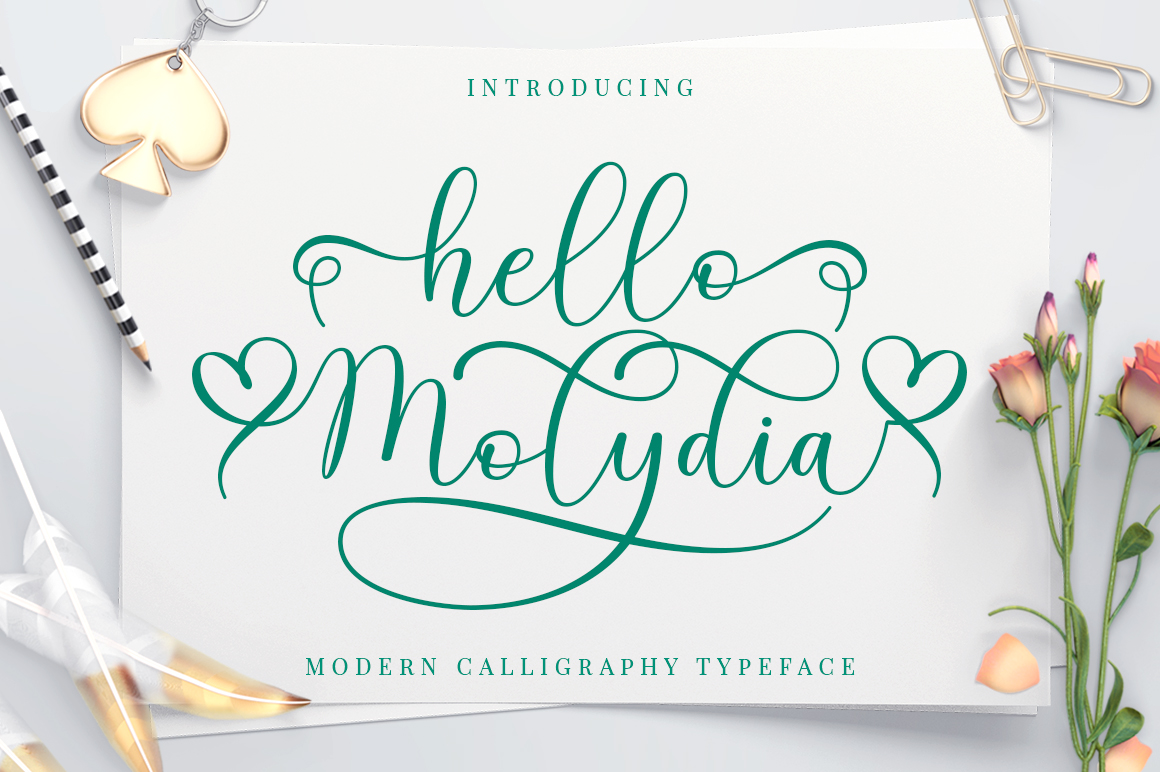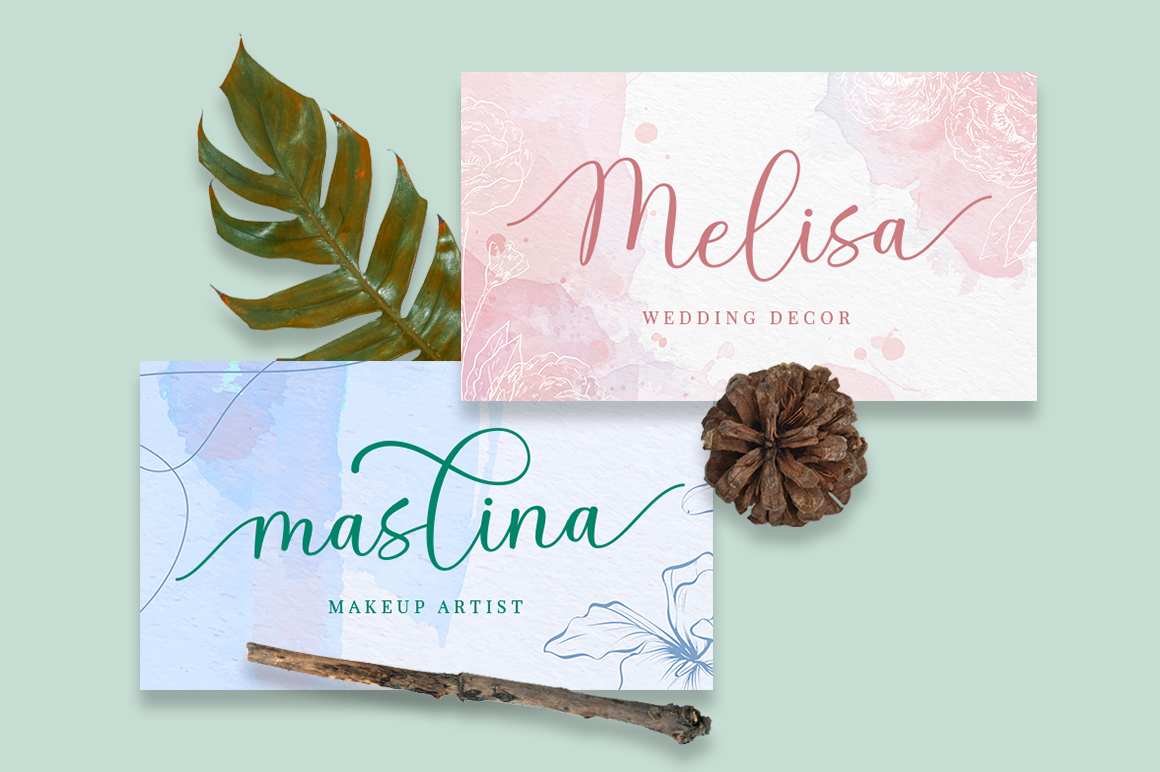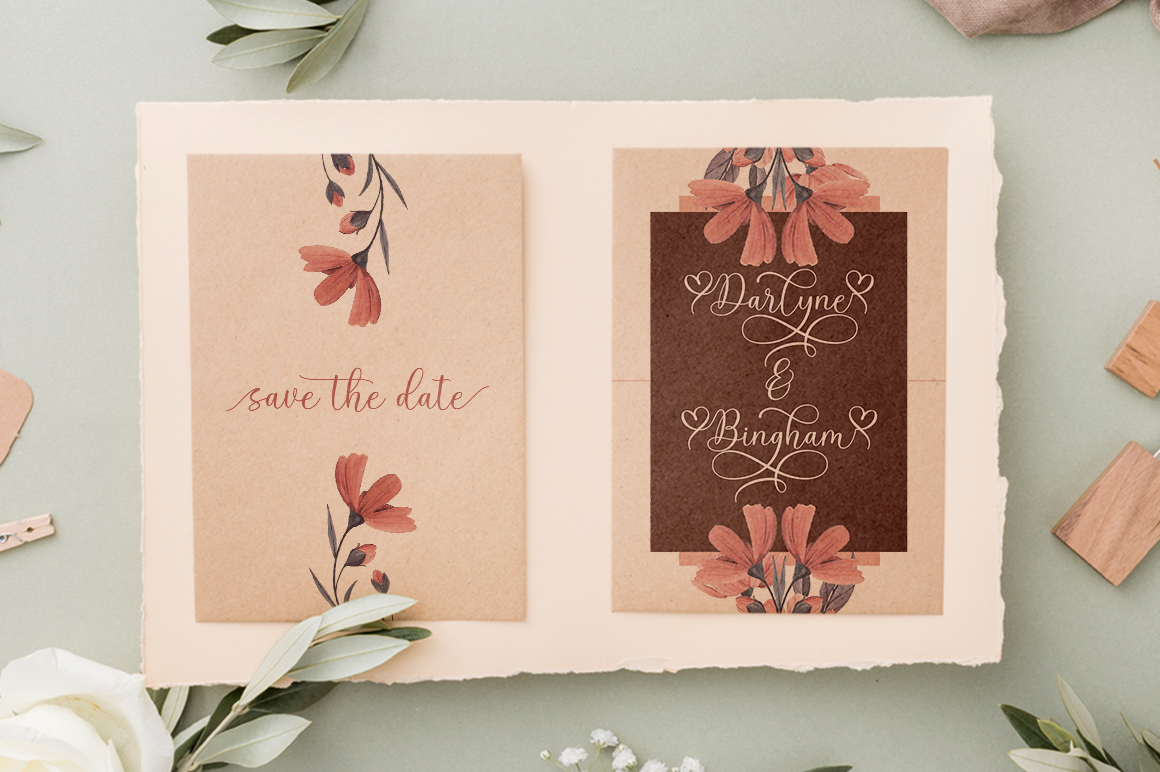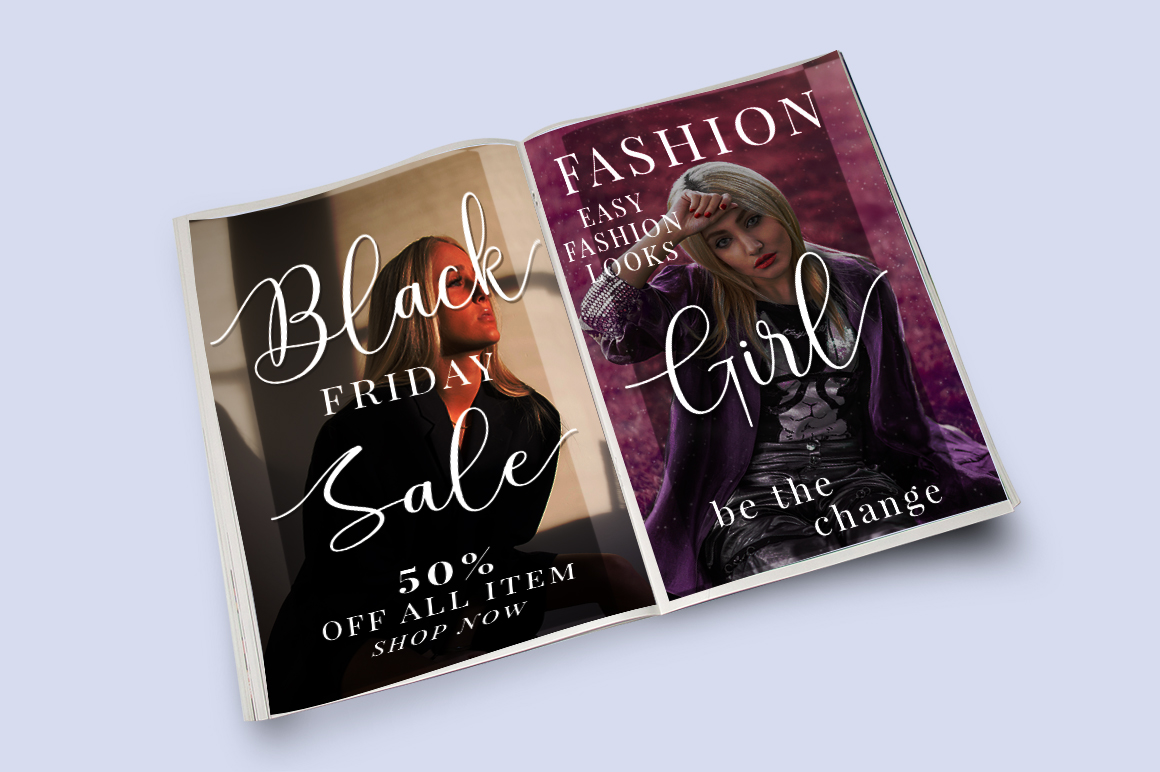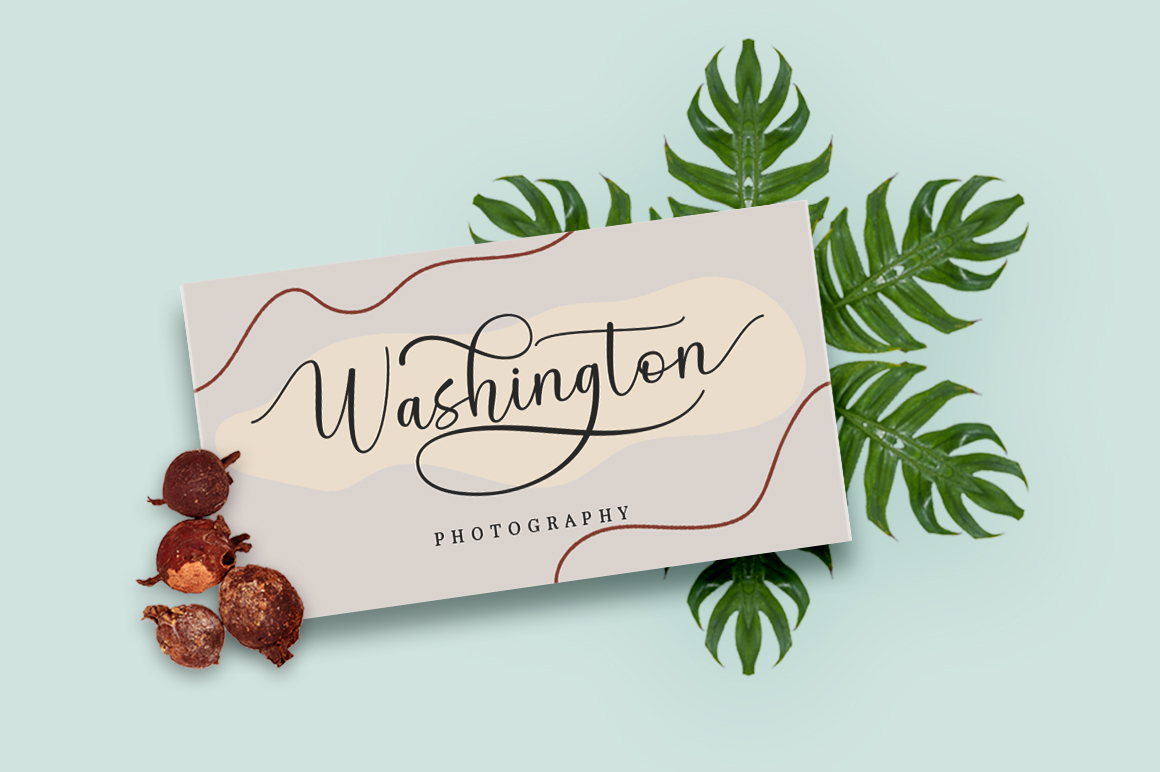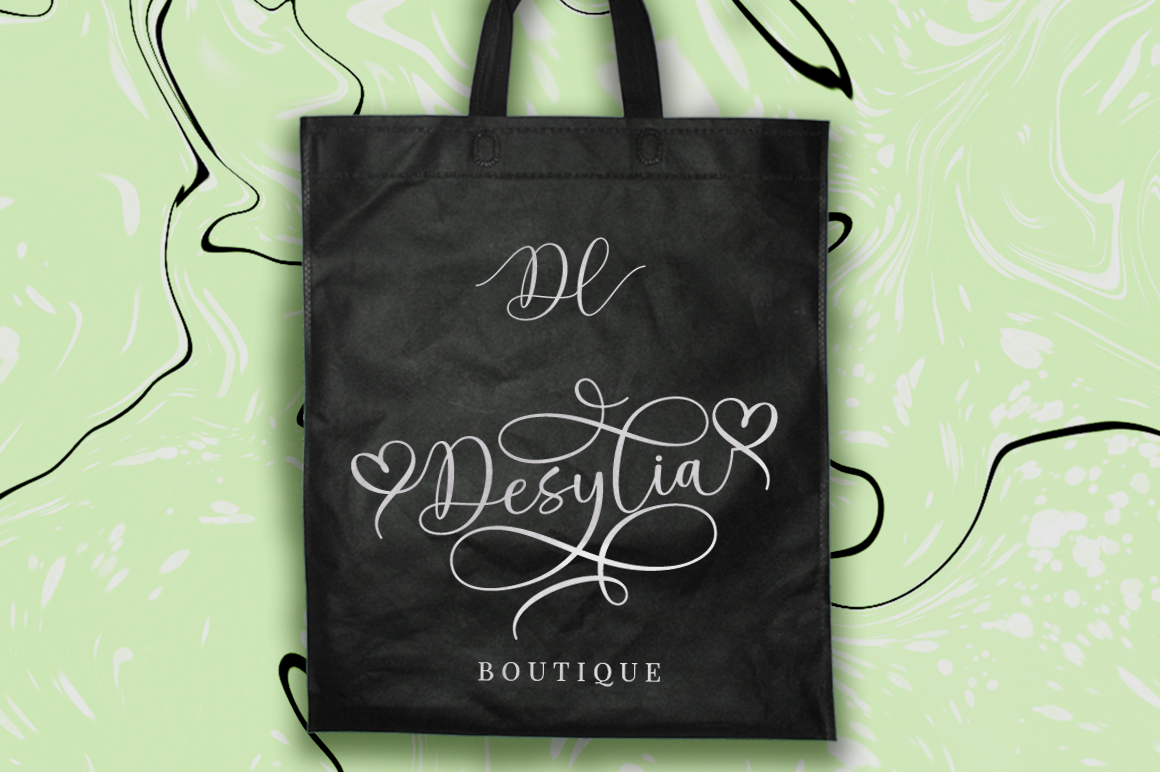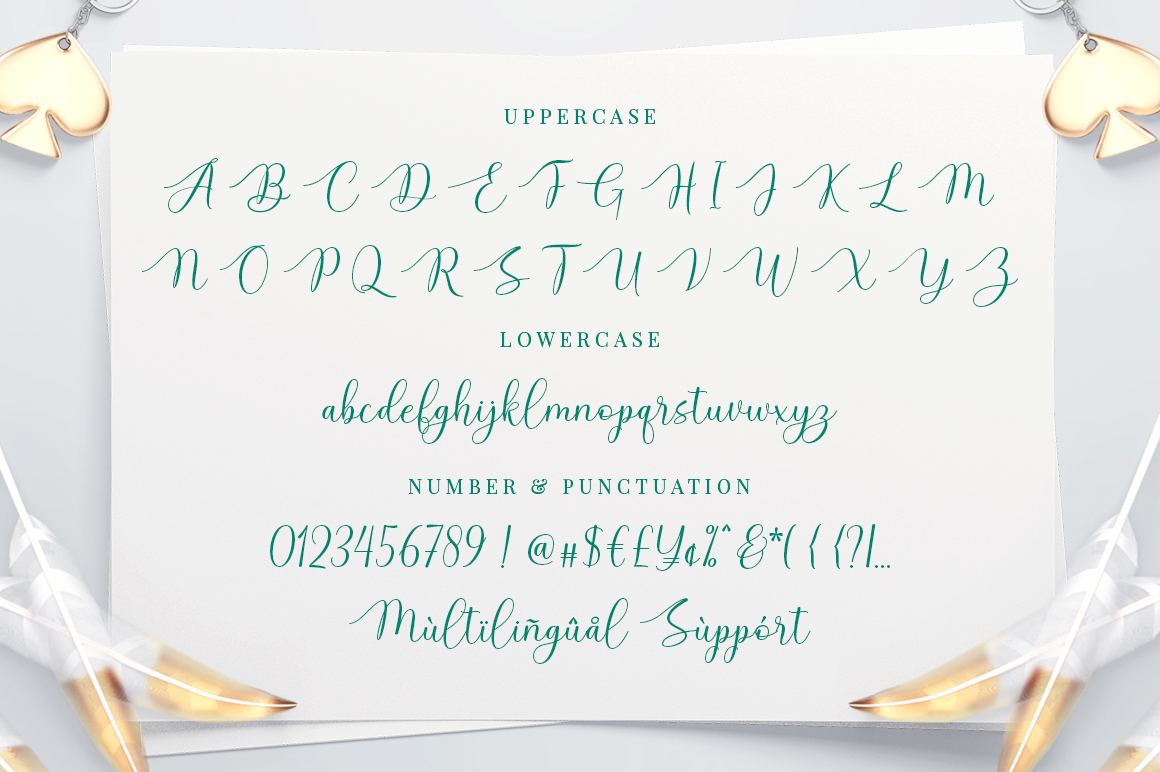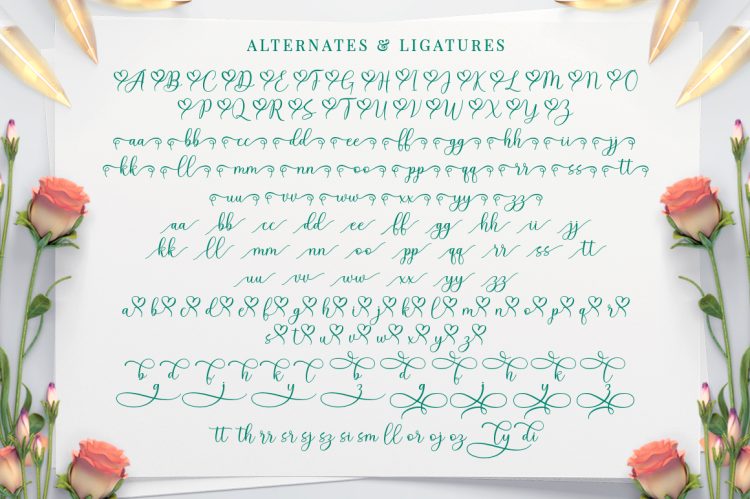
Hello Molydia is a sweet modern calligraphy font. This font is casual and elegant with swashes. Hello Molydia can be used for various purposes such as logos, product packaging, wedding invitations, branding, headlines, signage, labels, signatures, book covers, posters, quotes and more.
Hello Molydia Script features OpenType stylistic alternates, and ligatures. International support for most Western Languages is included. To enable the OpenType Stylistic alternates, you need a program that supports OpenType features such as Adobe Illustrator CS, Adobe Indesign & CorelDraw X6-X7, Microsoft Word 2010 or later versions.